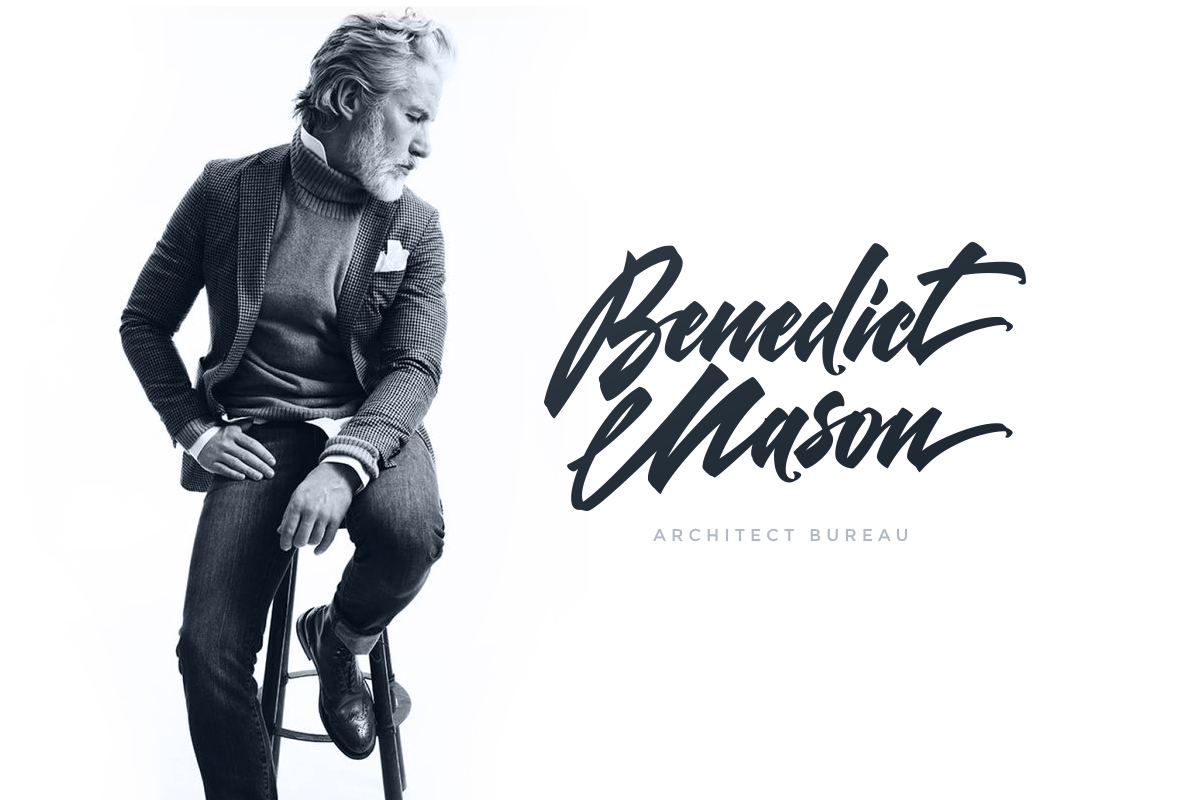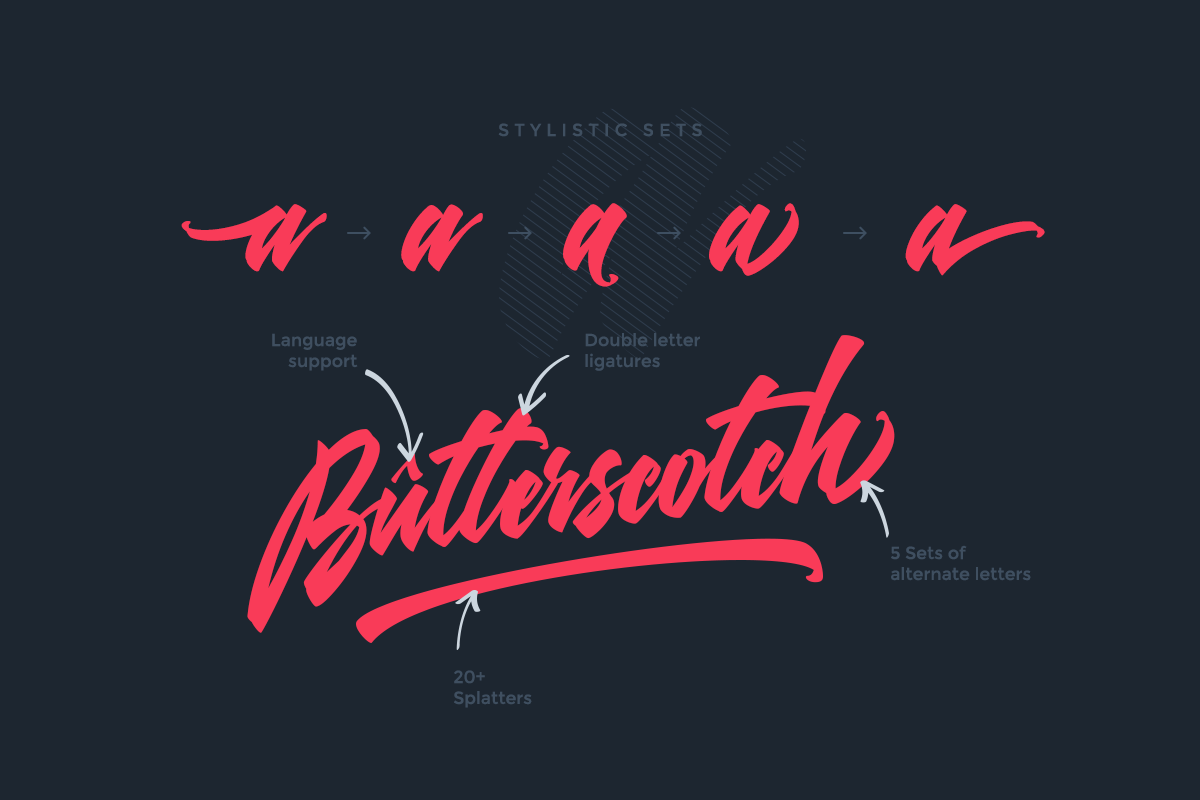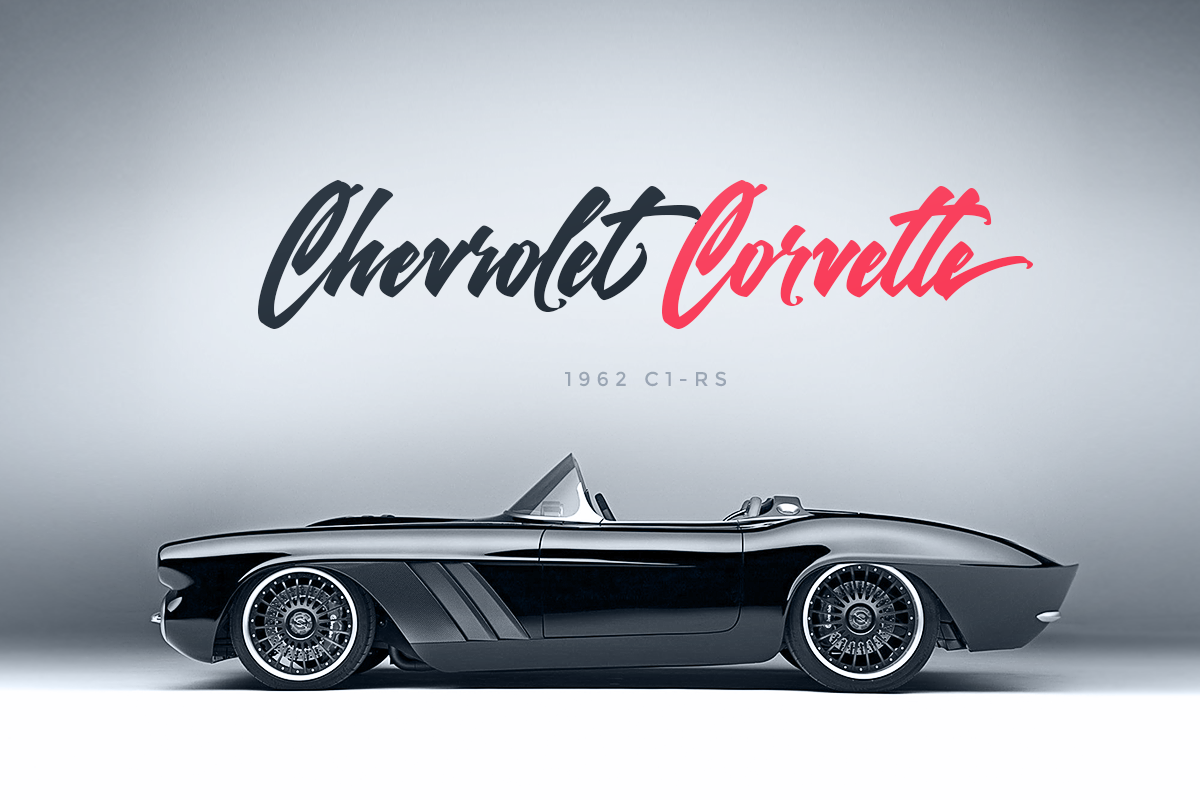
Emerald Script Font
Emerald Script Font by kavoon is a font selected for branding, posters, packaging, typography.
- The Normal font combines with the alternate character font to make each word unique.
Why Emerald Script Font is worth a look
Emerald Script Font by kavoon fits naturally into Branding, posters, packaging, typography.